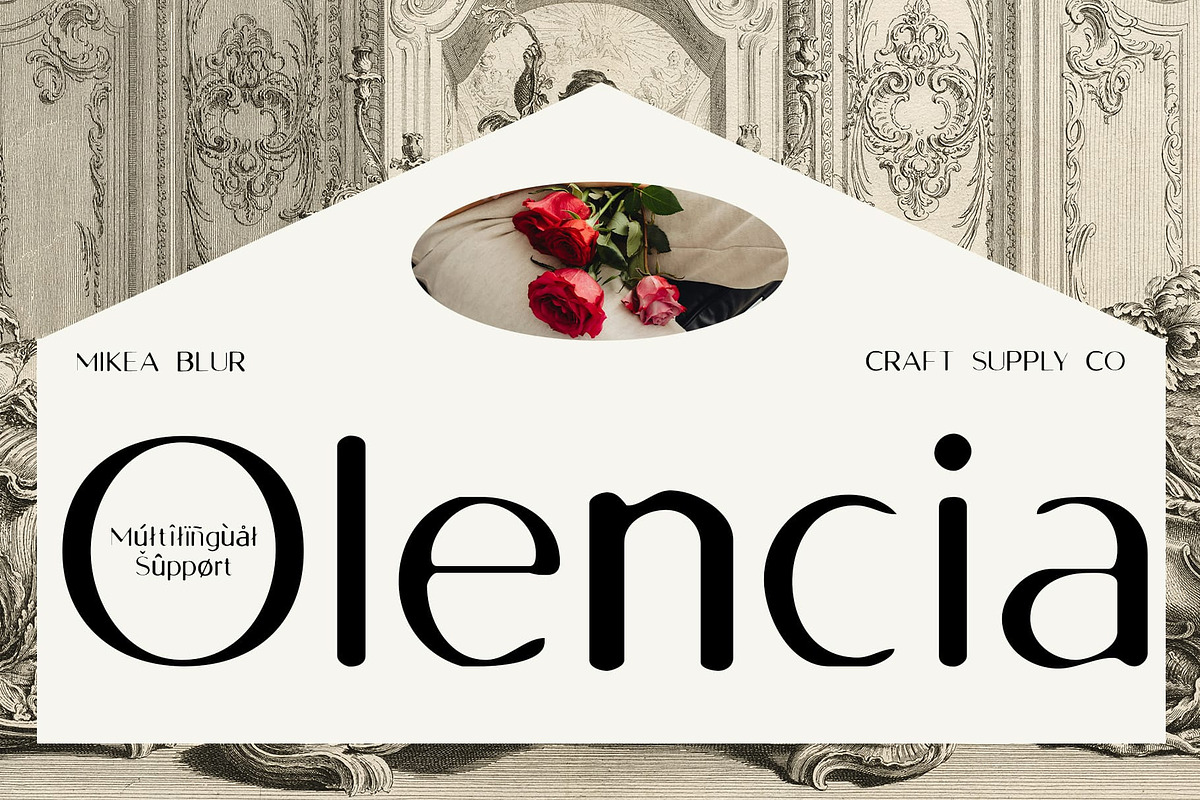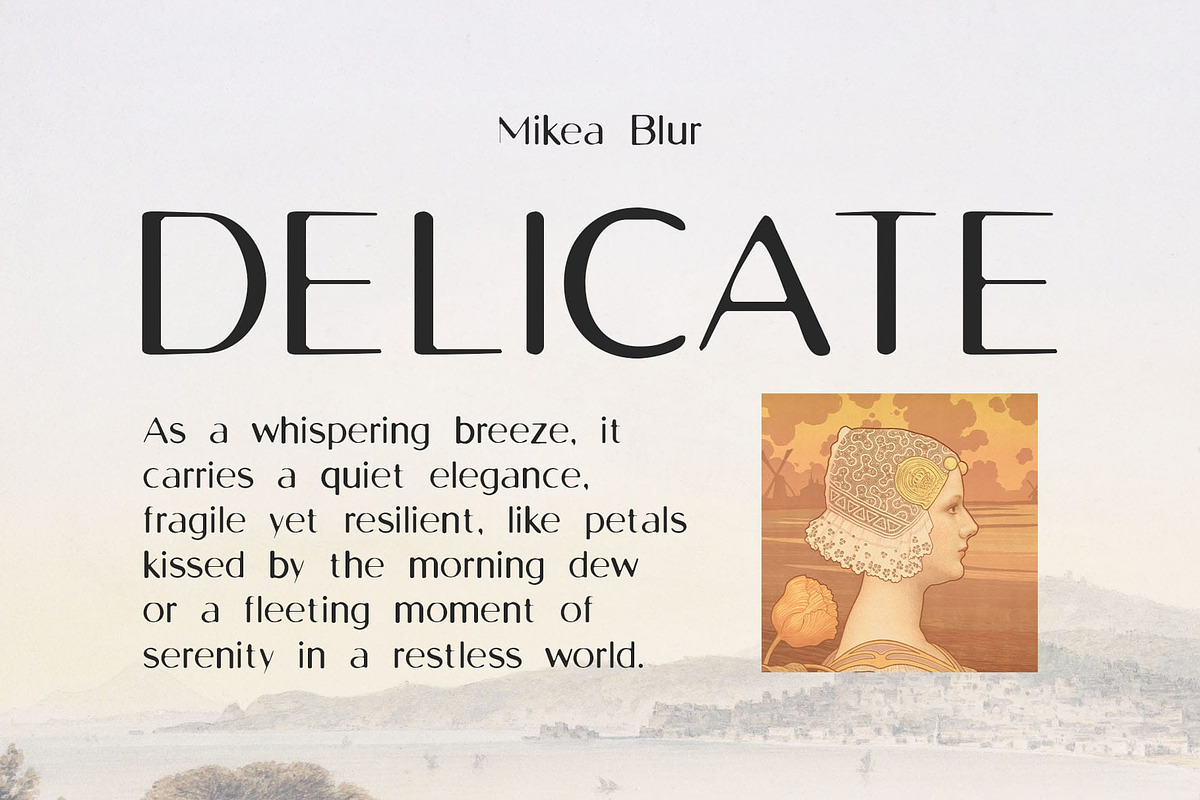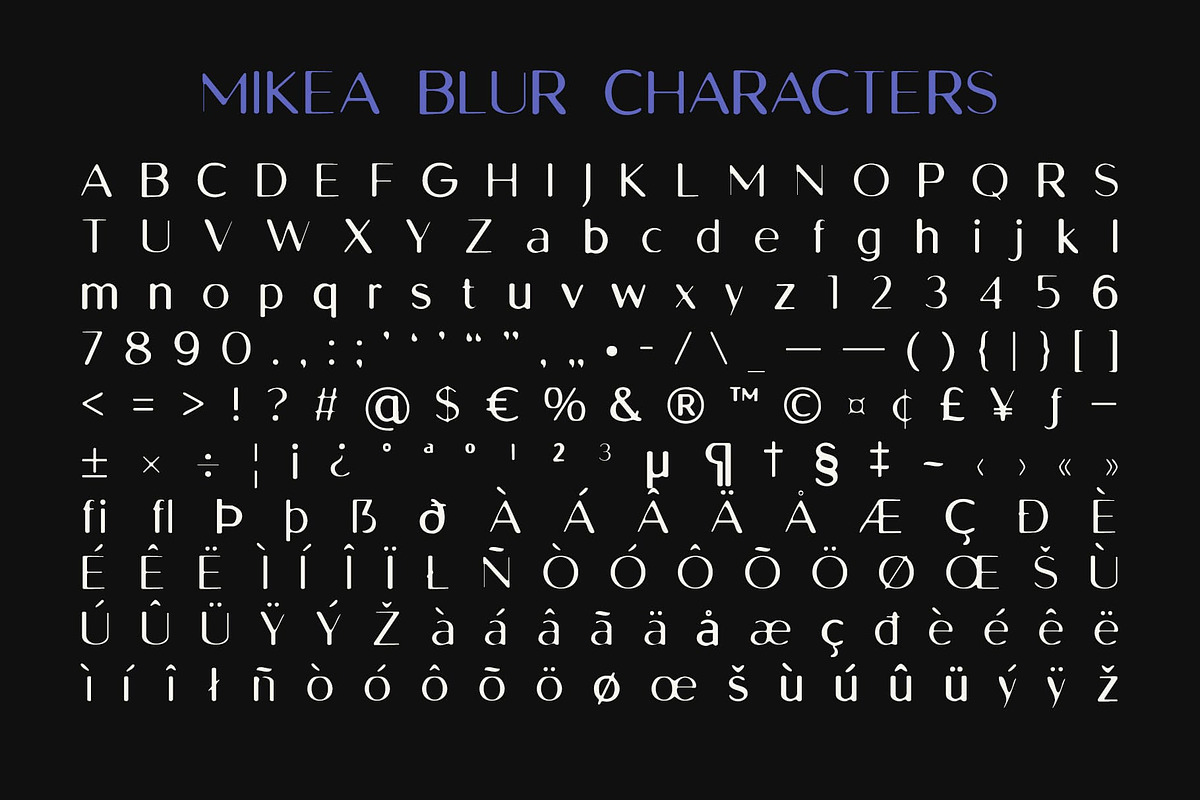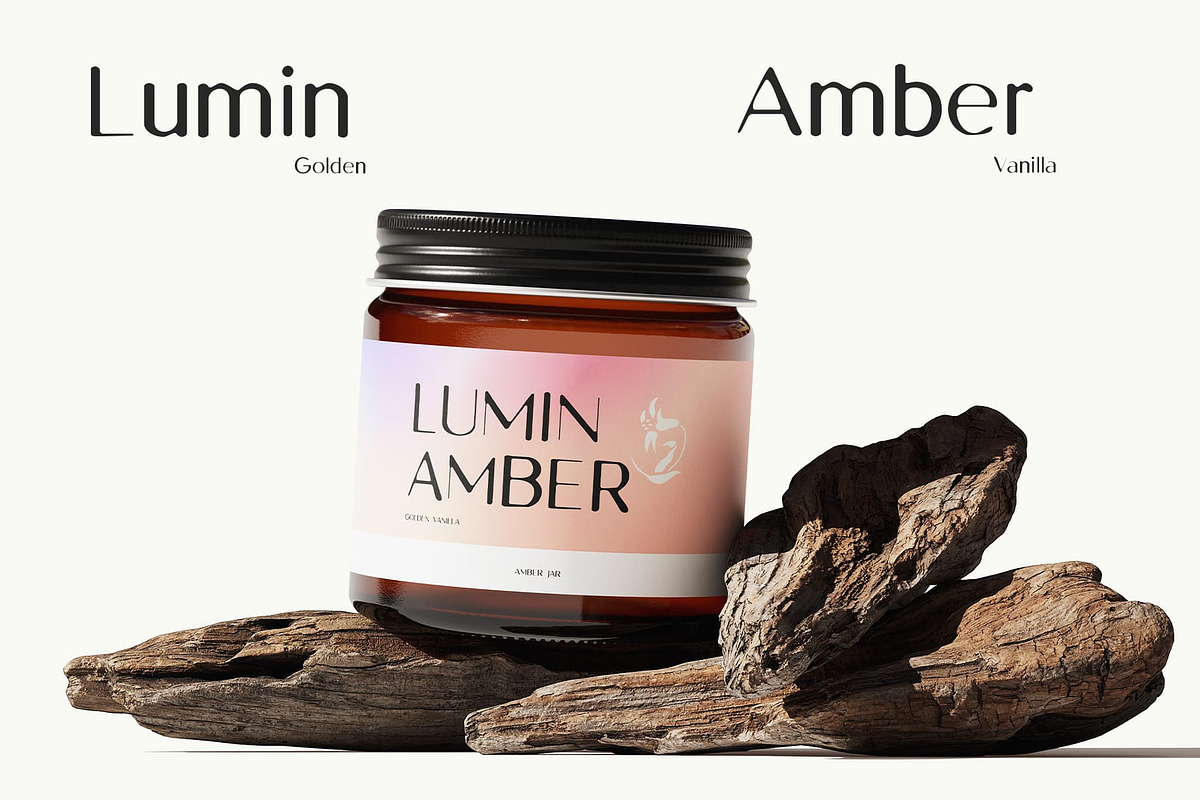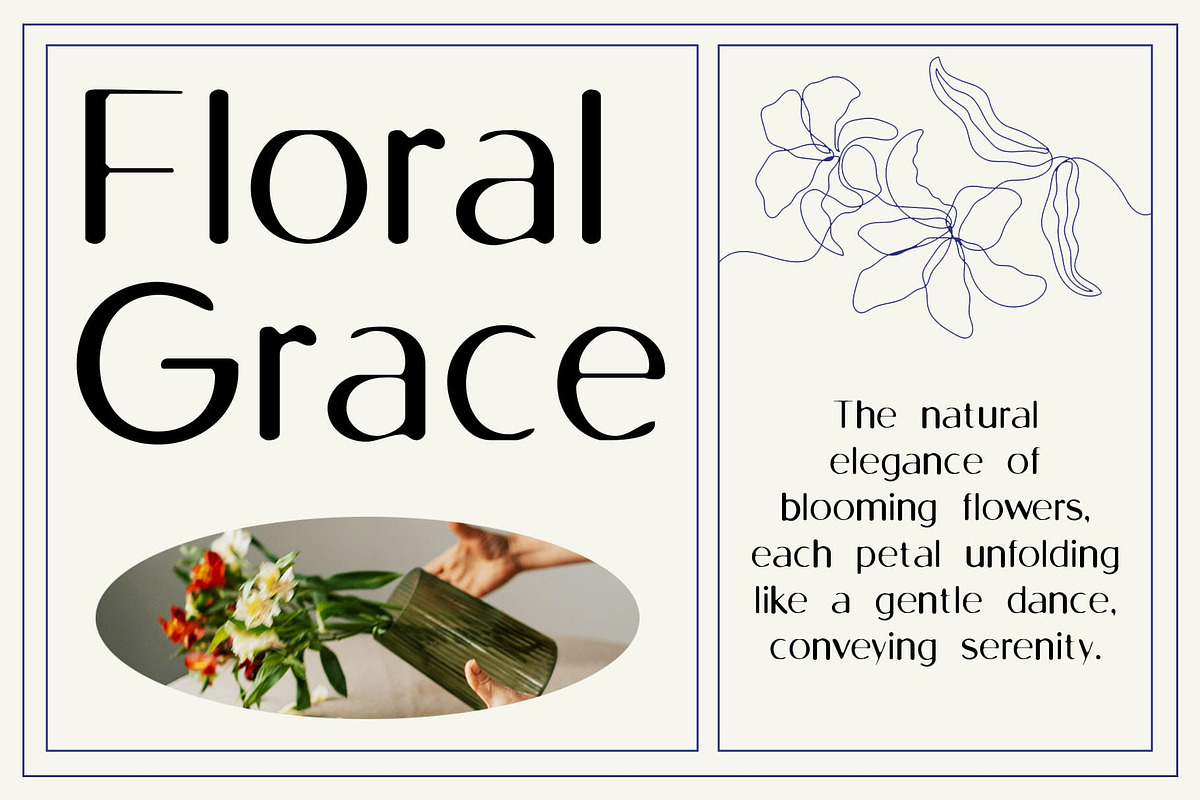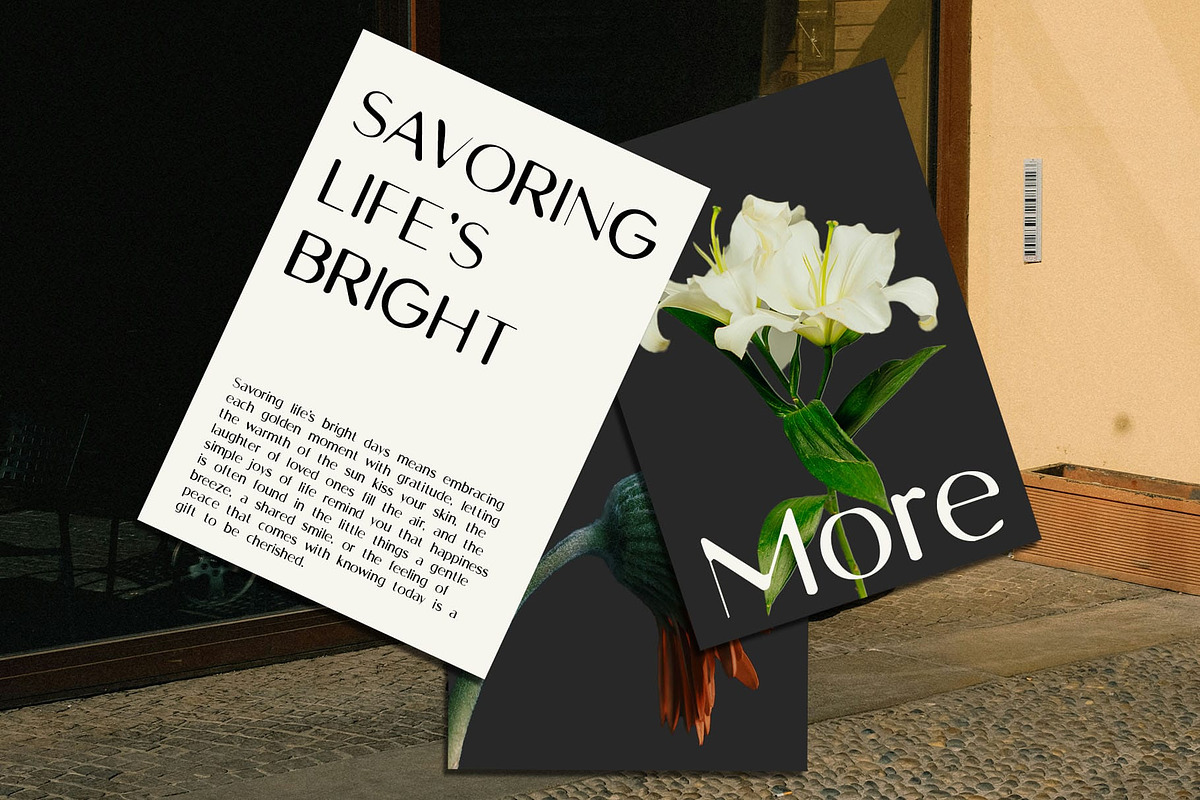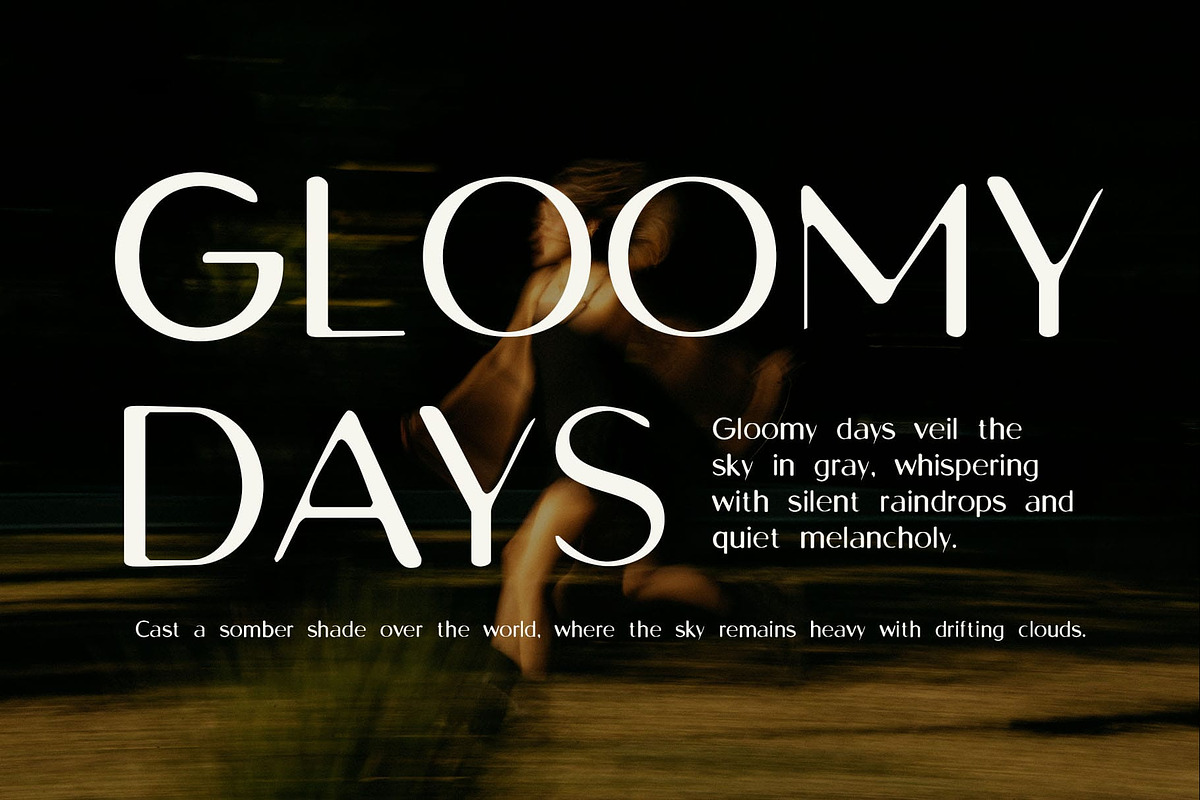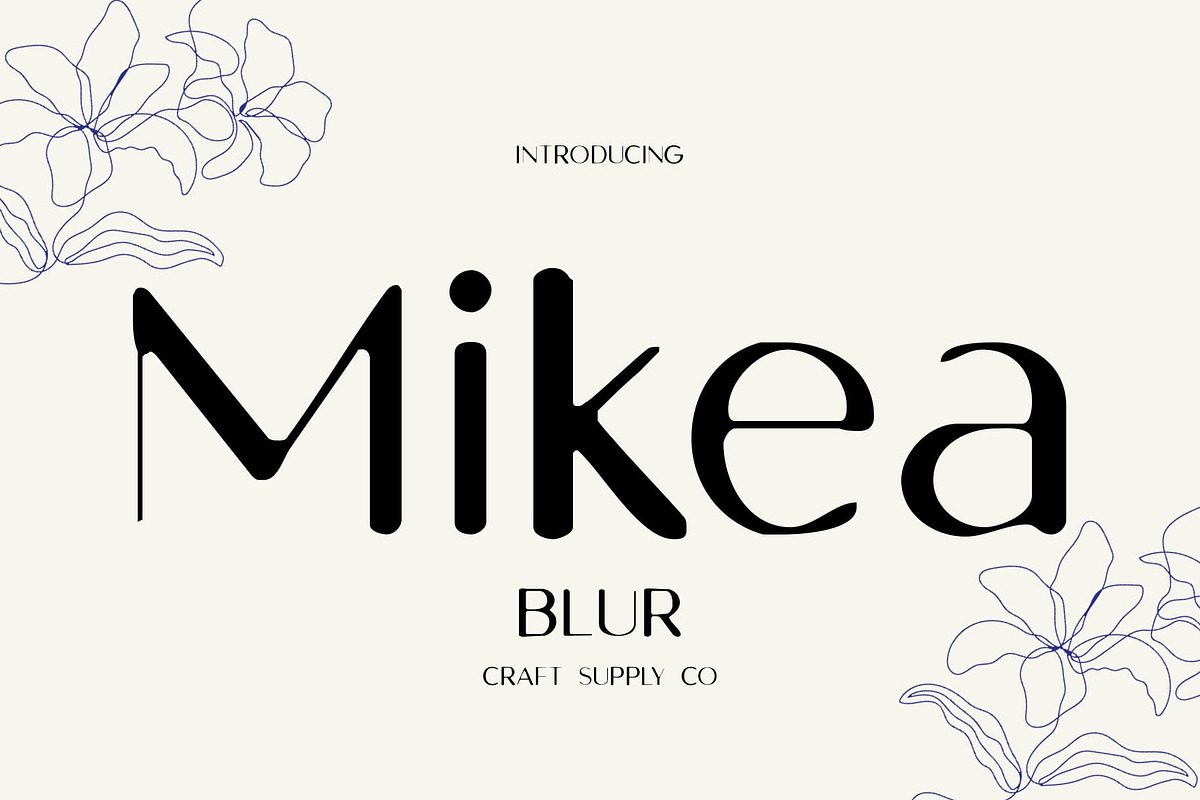
Mikea Blur
Mikea Blur Font – A Minimalist and Futuristic Sans-Serif
A Modern Sans-Serif with a Sophisticated Edge Mikea Blur is a modern sans-serif font that embodies clean lines, minimalism, and refined elegance. Designed for sophisticated and contemporary aesthetics, it balances sleek geometry with a soft, subtle charm, making it an excellent choice for luxury branding, editorial layouts, and innovative digital projects.
Blur Effect for a Futuristic Appeal The defining feature of Mikea Blur is its delicate blur effect, which adds a sense of depth, movement, and dreamlike sophistication. This effect creates a soft-focus aesthetic, giving the font a cutting-edge and futuristic vibe. It’s perfect for modern tech branding, high-fashion campaigns, and digital experiences that embrace innovation and creativity.
Perfect for High-End and Trend-Driven Designs Mikea Blur’s versatile and stylish form makes it ideal for fashion editorials, luxury product packaging, and premium advertising. The combination of clarity and subtle distortion provides a captivating visual effect, enhancing the overall aesthetic of any high-end design.
A Unique Blend of Minimalism and Expression Whether you’re crafting sleek brand identities, experimental digital interfaces, or elegant typographic compositions, Mikea Blur offers the perfect balance between modern simplicity and artistic flair. With its futuristic yet timeless appeal, this font stands out as a statement piece in any design project.